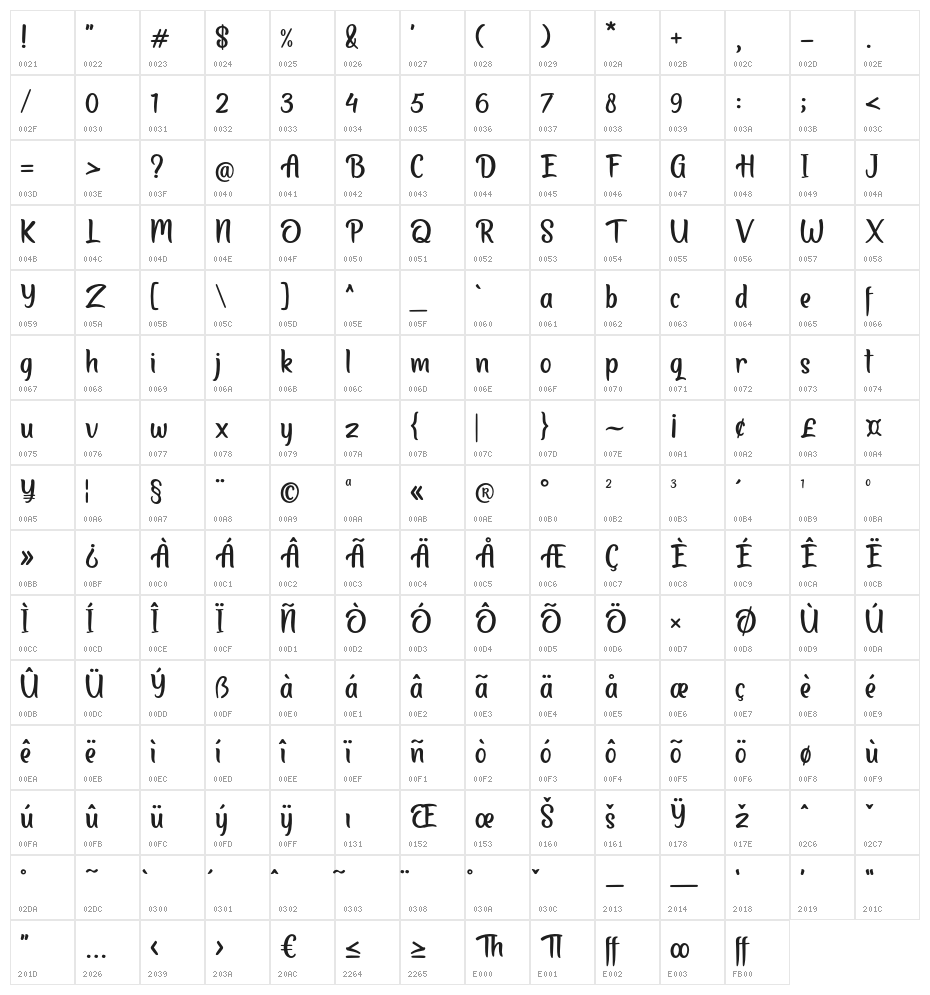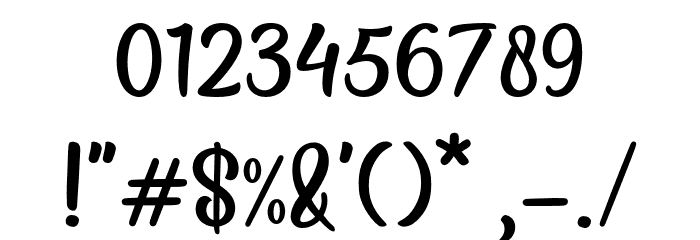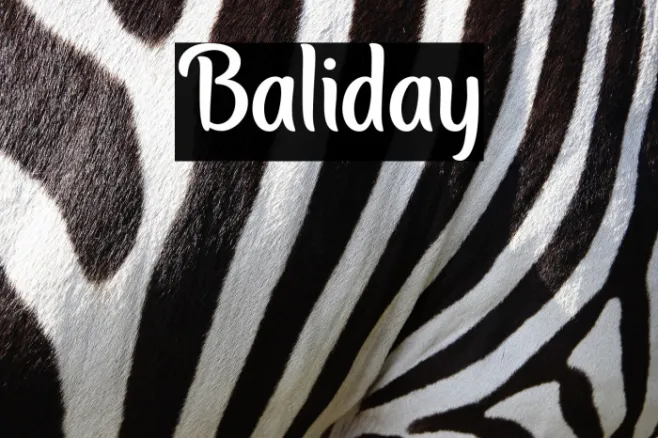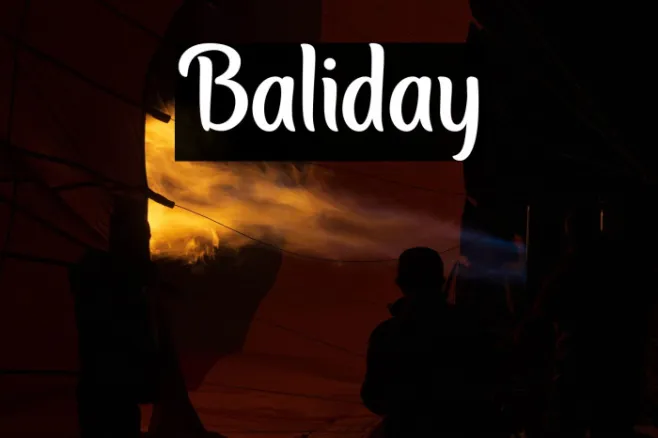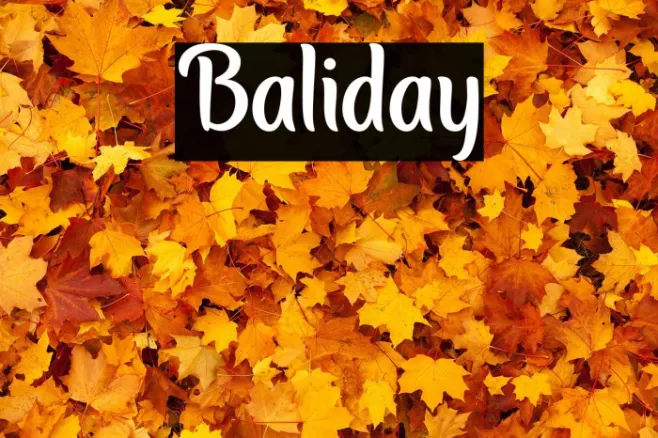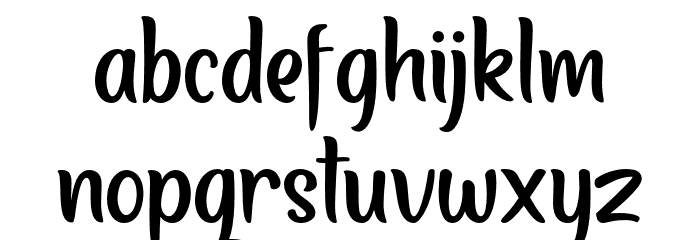
Baliday Font
Baliday Description
This font features a playful and casual handwritten style, characterized by its smooth curves and slightly irregular strokes. The letters have a friendly and approachable appearance, with a consistent flow that mimics natural handwriting. The uppercase letters are bold and prominent, while the lowercase letters maintain a balanced and cohesive look. The numerals and special characters are designed to complement the overall style, ensuring readability and visual harmony. This font is ideal for projects that require a personal touch, such as invitations, greeting cards, and creative branding.